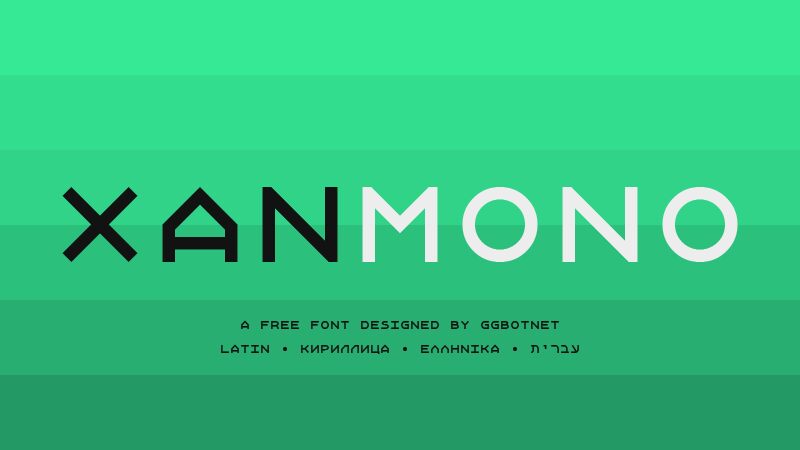
Xanmono
Xanmono font, designed by GGBotNet, is a fixed-width font with an expanded width that brings a futuristic and minimalist vibe to its designs. Flows of clean lines combine with geometric forms in each letter for a unique modern look within each text. The free typeface works best in headings and large texts where its details are clearly noticeable.
Making your ideas stand out won’t be difficult when you use Xanmono to display them. The geometric nature inside is perfect for college magazines, art covers, product packages or boxes, and book covers. The simple style is also possible for more classic projects such as restaurants’ names or menus where elegance is preferred!